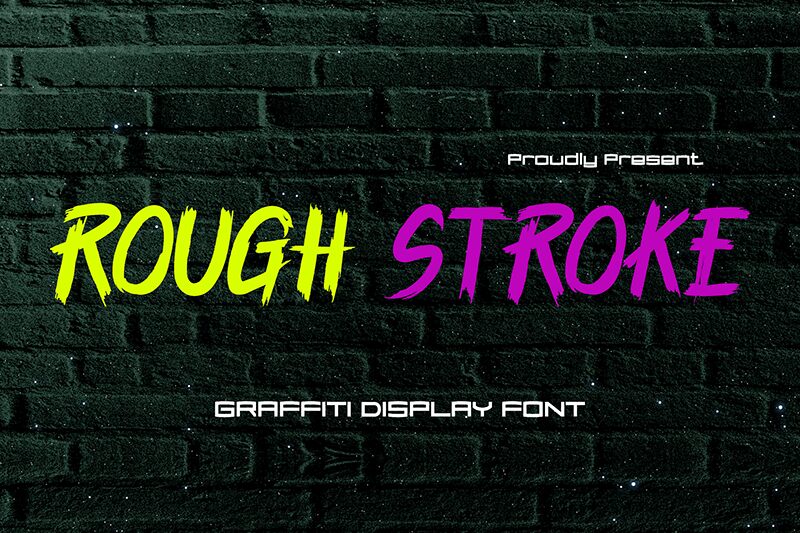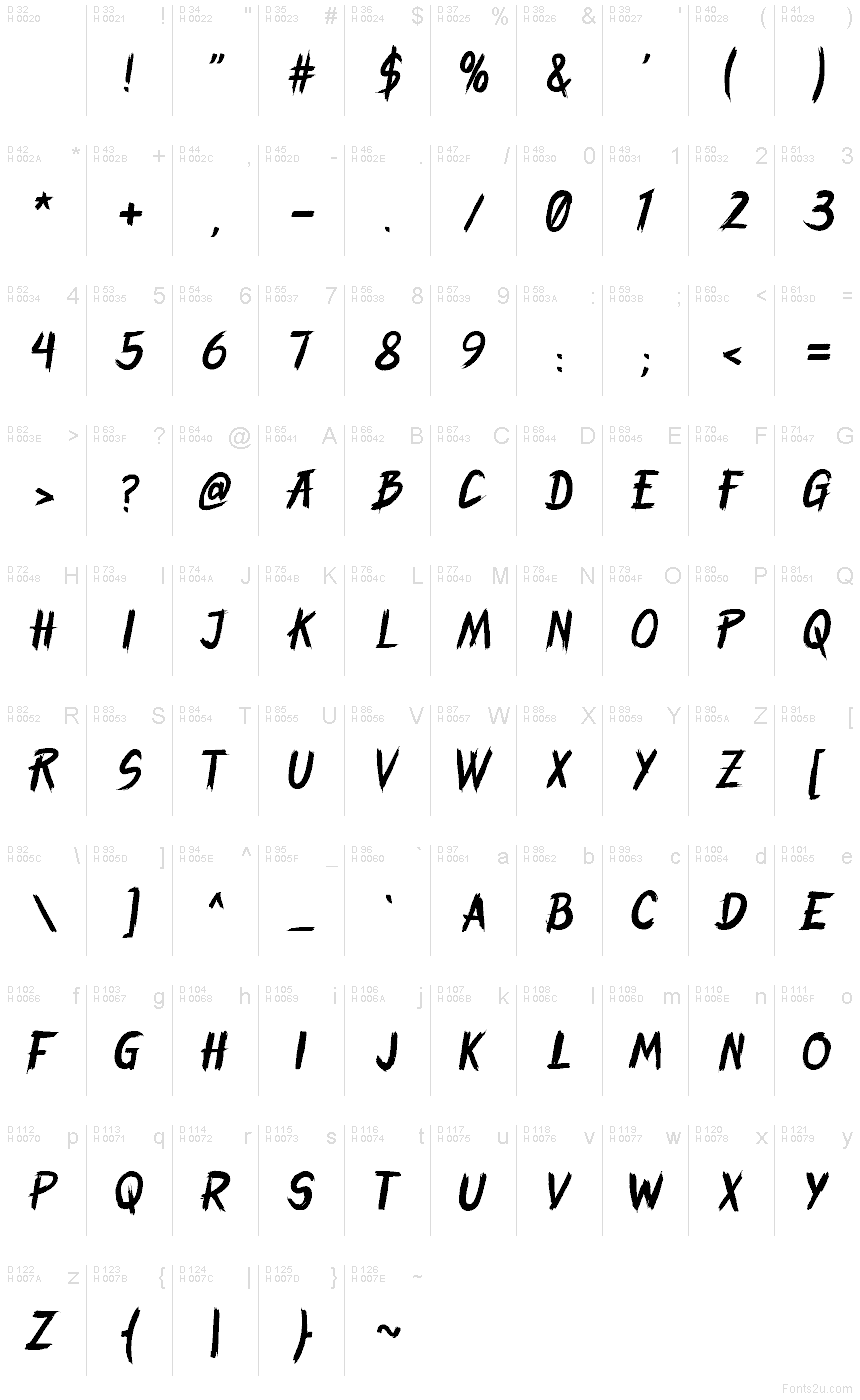
ROUGH-STROKE
Rough Stroke font by Modestype Studio is a free rough brush display font. Its defining trait is the ragged, dry-brush texture—slashes that look ripped from a poster wall, with inky drag and sharp edges that carry real momentum. The letters feel fast and physical, delivering a loud, hand-made punch without losing legibility.
Using Rough Stroke, titles jump off the page for extreme sports branding, horror or action movie posters, album covers, game titles, streetwear logos, and gritty event flyers. Set it big with slightly tight tracking; pair with a clean geometric sans to ground the chaos and keep copy readable. This free font turns headline space into a high-energy streak.